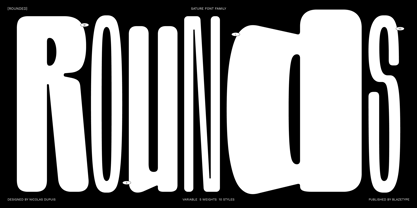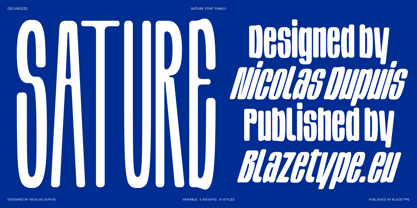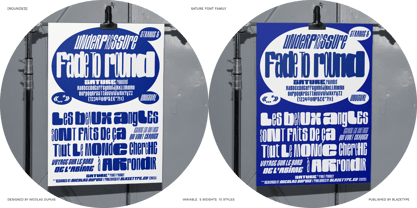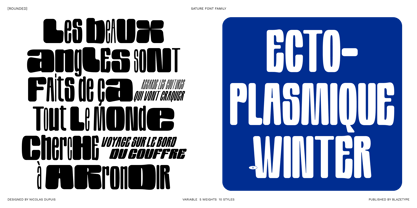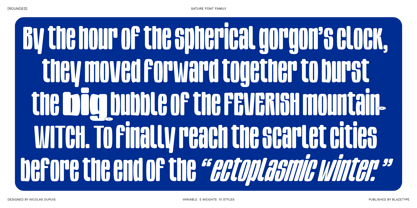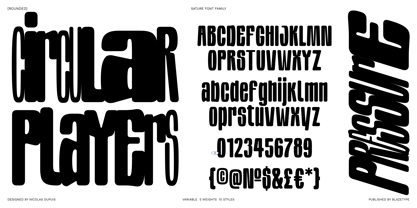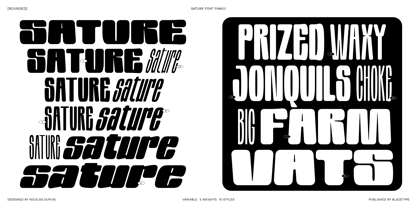
Sature Rounded
von Blaze Type
Die Schriftfamilie Sature Rounded wurde von Nicolas Dupuis entworfen und von Blaze Type veröffentlicht. Sature Rounded enthält 10 Stile und Familienpaketoptionen. Mehr über diese Familie
Designed from large-print lettering drawn on paper, the Sature font family came from a desire to create a complete family that unfolds. With this rounded version, there are no more sharp angles! It is a flexible way to share some good vibes. All styles can be used together to create contrasts in the layout. The name of the font comes from the french word «Saturer», meaning to overtake with excess. Feel free to maximize. With its 5 heights and 10 styles with the slant, the family offers a wealth of possibilities for creating saturation effects. A variable font that gives the impression that between each style appears a doubling of the letter, like a felt-tip marker that enlarges the letter. Horizontal processing was carried out to give the letters their fullness, making it easy for use in large sizes and high-impact messages.
Designer: Nicolas Dupuis